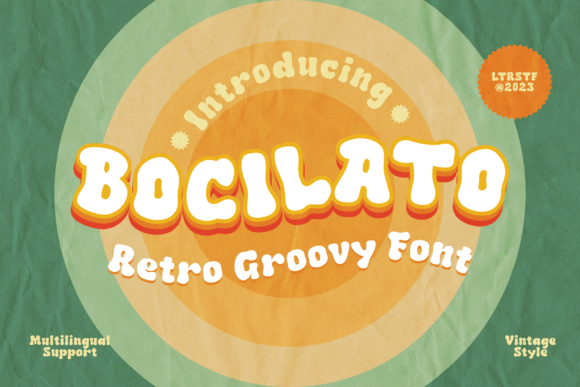
Timeless Elegance: The Bocilato Font
You know that feeling when you stumble upon an old family photo or a vintage advertisement, and suddenly you’re transported to a bygone era? That’s exactly the kind of nostalgic charm that the Bocilato Font aims to capture. This playful font is a masterful blend of vintage style and modern flair, perfect for creating designs that exude a sense of classic sophistication.
Bocilato Font is more than just a font – it’s a tool for designers who want to add a touch of timeless elegance to their work. Whether you’re creating vintage-inspired posters, retro-style infographics, or logos that scream nostalgia, this font is the perfect companion. Its hand-crafted design ensures that every letter feels natural and friendly, making it an invaluable addition to any designer’s toolkit.
Bocilato Font Key Features
- Unique Characteristics: The font features a unique, hand-drawn design with intricate details, giving it a distinctive and elegant appearance.
Bocilato Font Review
I recently had the chance to work with the Bocilato font, and I must say it’s a unique addition to any design project. ✨ The font’s playful and whimsical feel immediately caught my attention, making it perfect for creating eye-catching headlines and titles.
Here are some of the things I like about the Bocilato font:
- ✨ High level of customization: Bocilato offers a wide range of styles and weights, allowing designers to fine-tune their project to perfection.
- ✨ Unique letterforms: The font’s intricate details and curved lines add a touch of sophistication and elegance to any design.
- ⚠️ Limited legibility in small sizes: While Bocilato is stunning in larger sizes, it can become difficult to read when used in smaller text.
- ⚠️ May not be suitable for formal or professional projects: The font’s playful nature may not be the best fit for more formal or professional designs.
Overall, I think Bocilato is a great addition to any designer’s toolkit, but it’s essential to use it judiciously and consider its limitations when working on a project.
The Bocilato Font is ideal for creating unique and eye-catching designs for:
- Logos and branding materials.
- Marketing materials such as flyers, brochures, and posters.